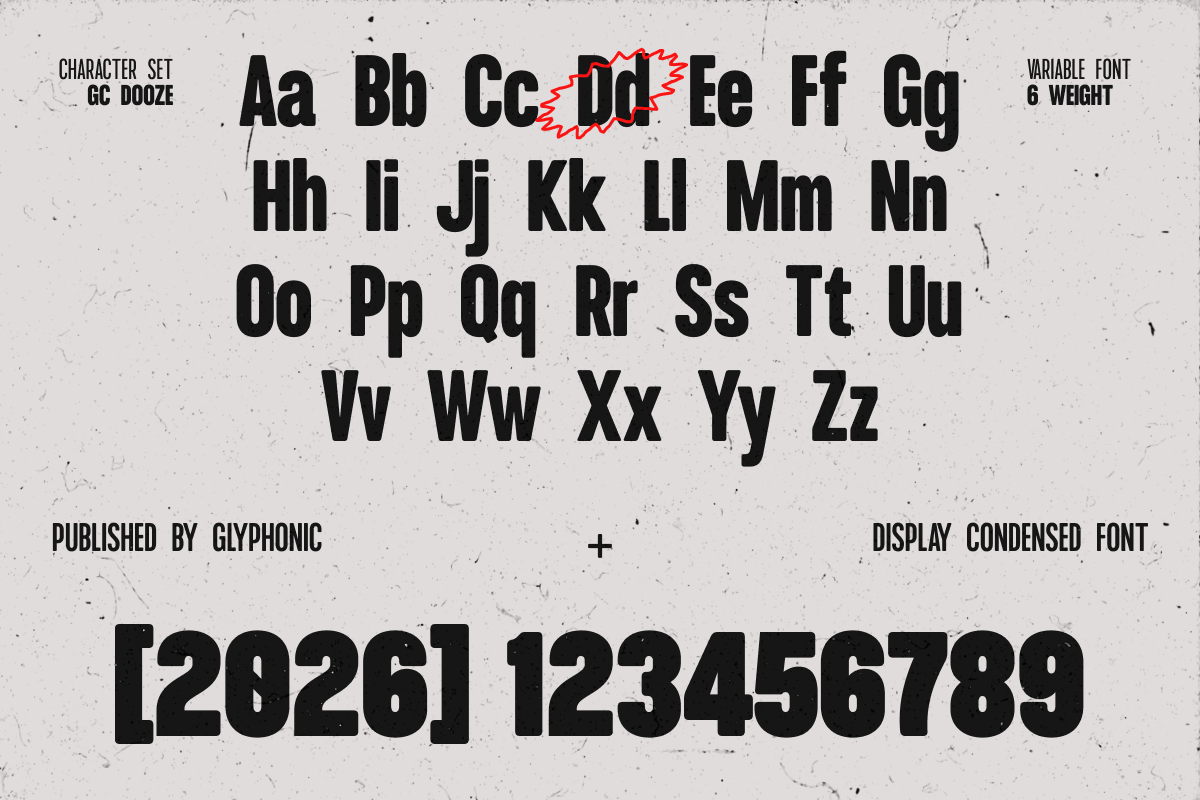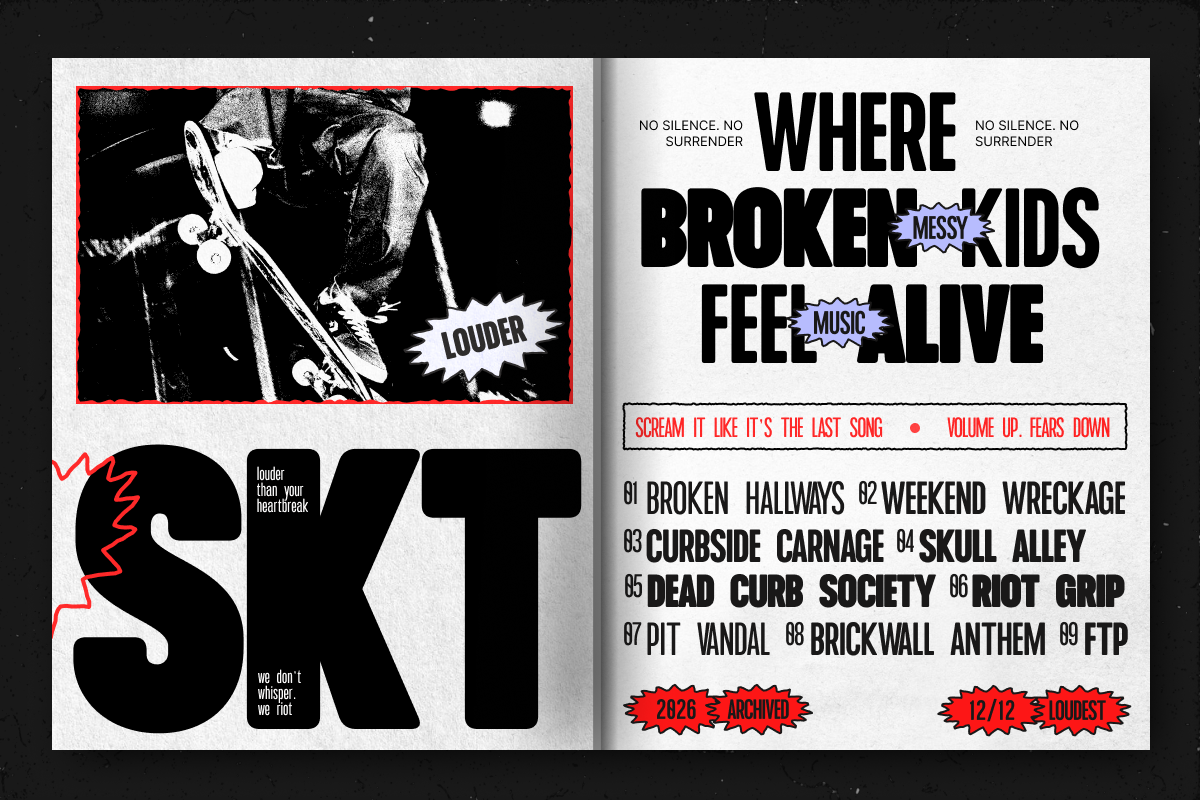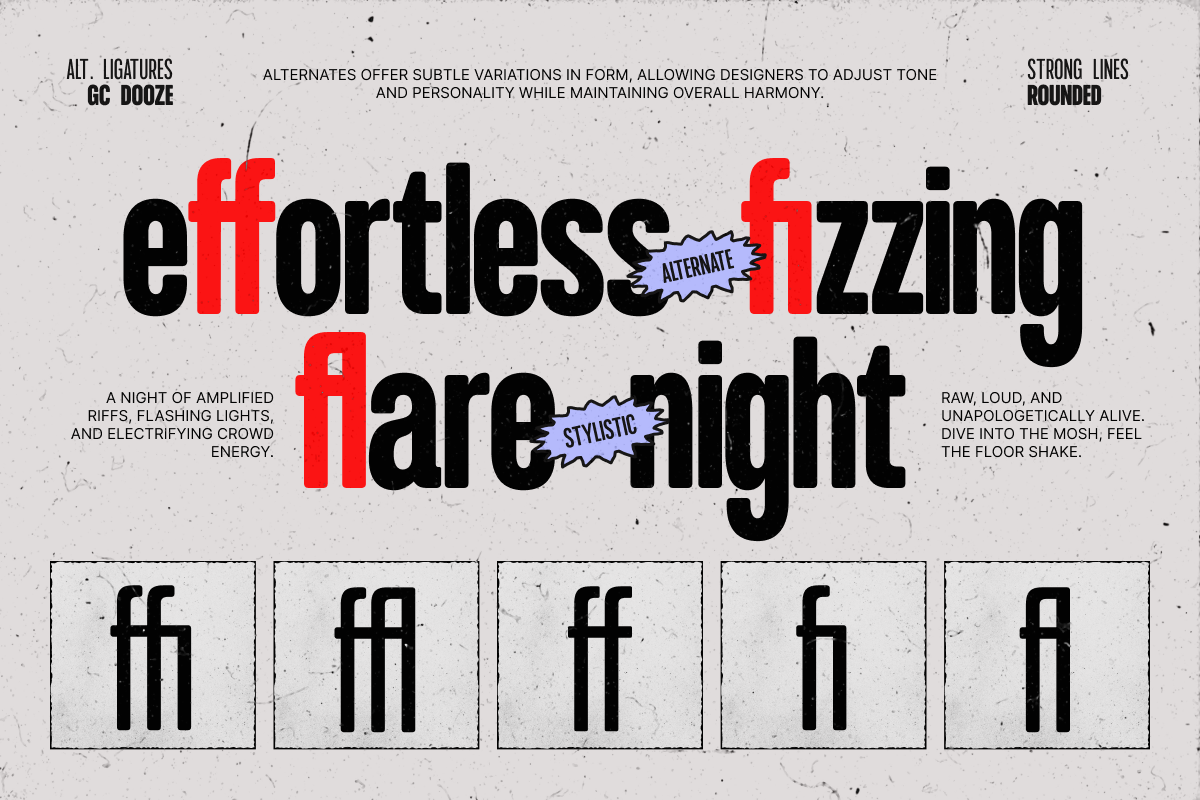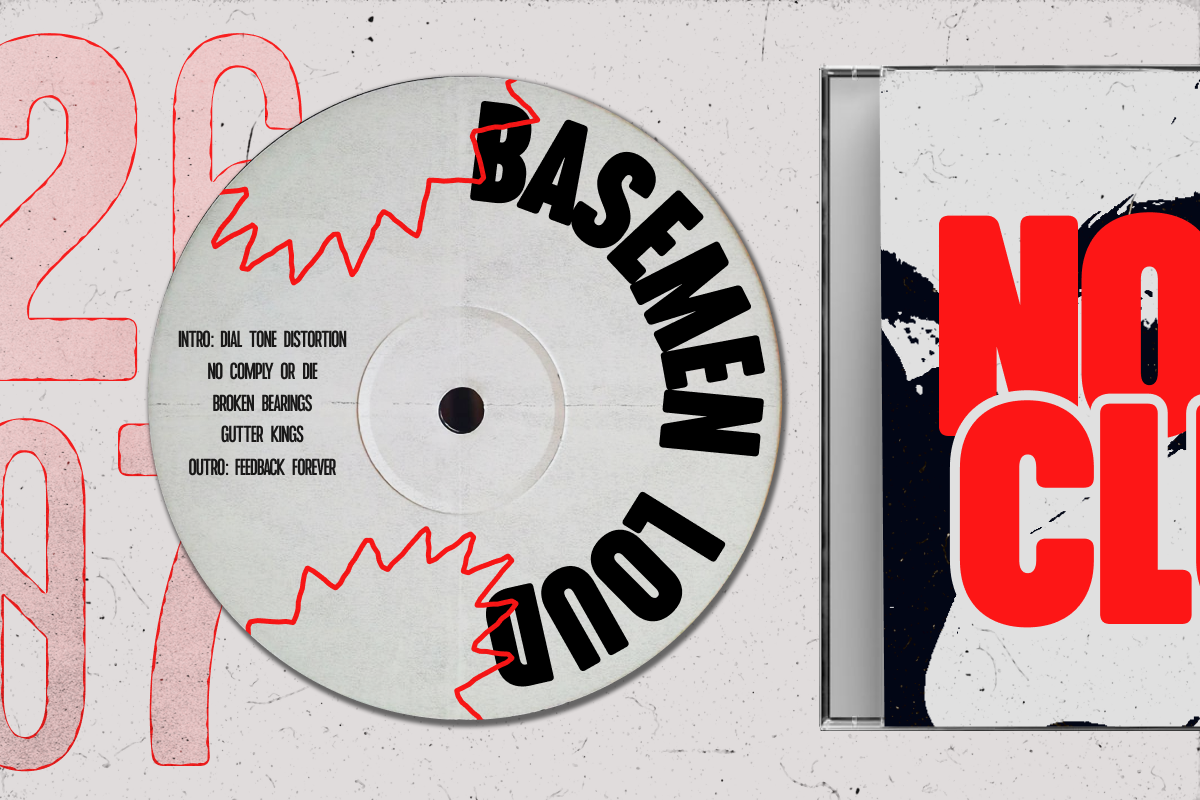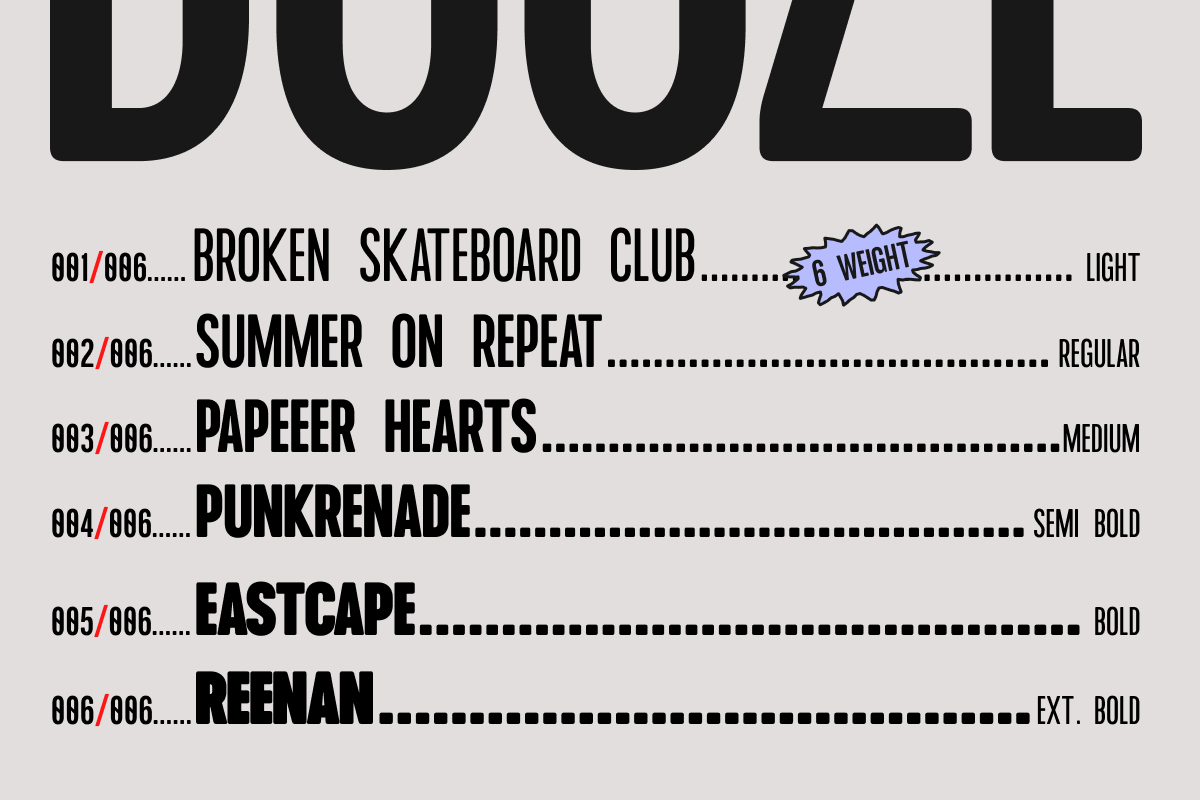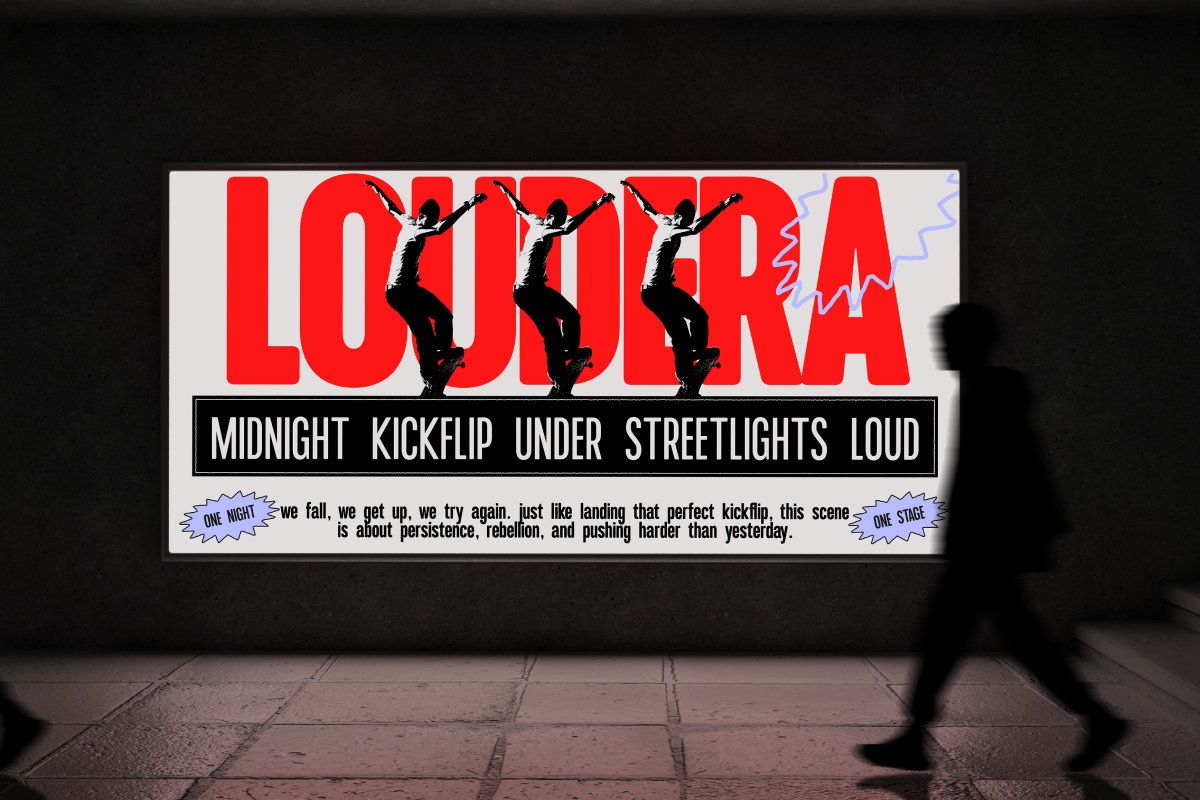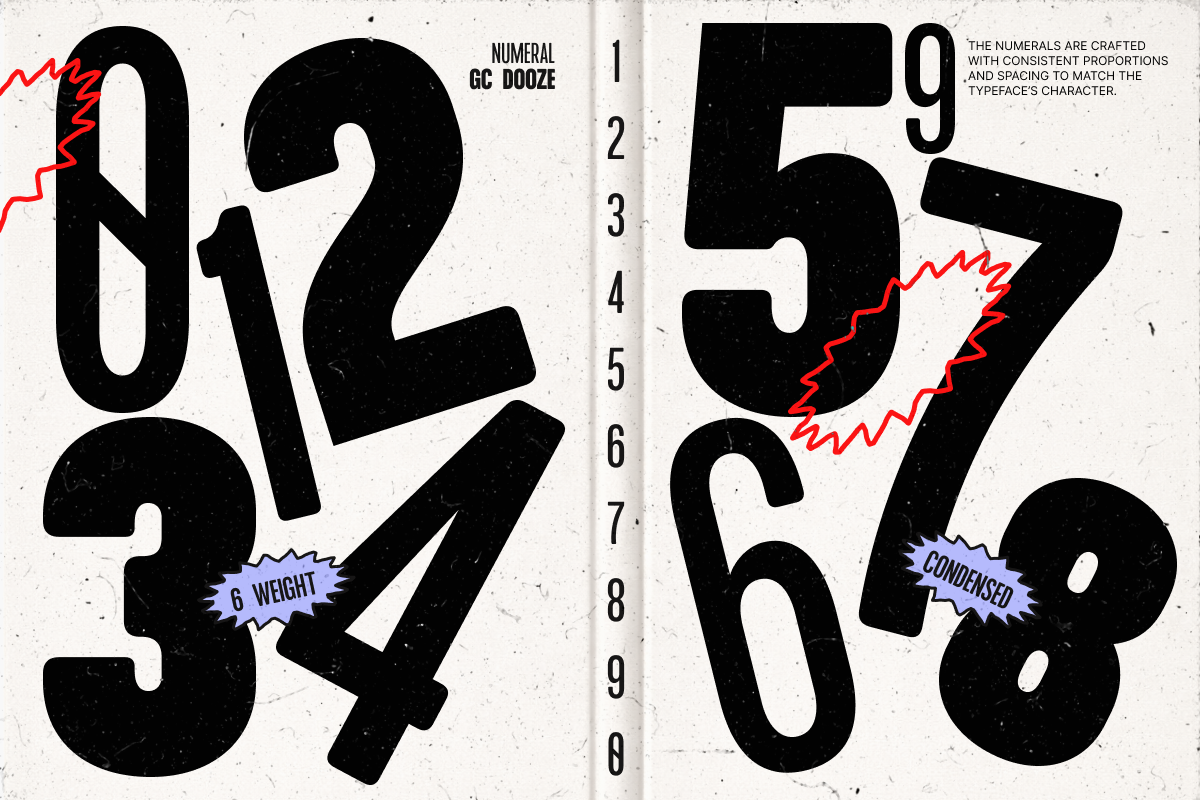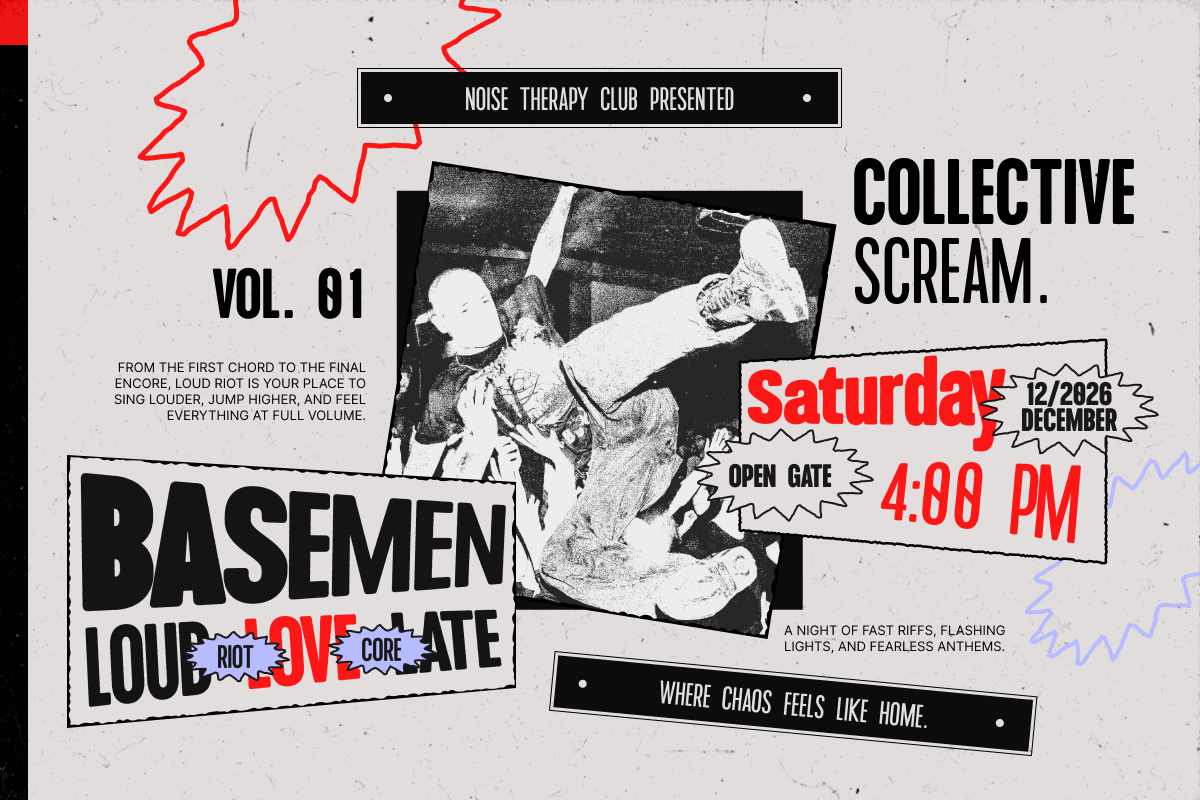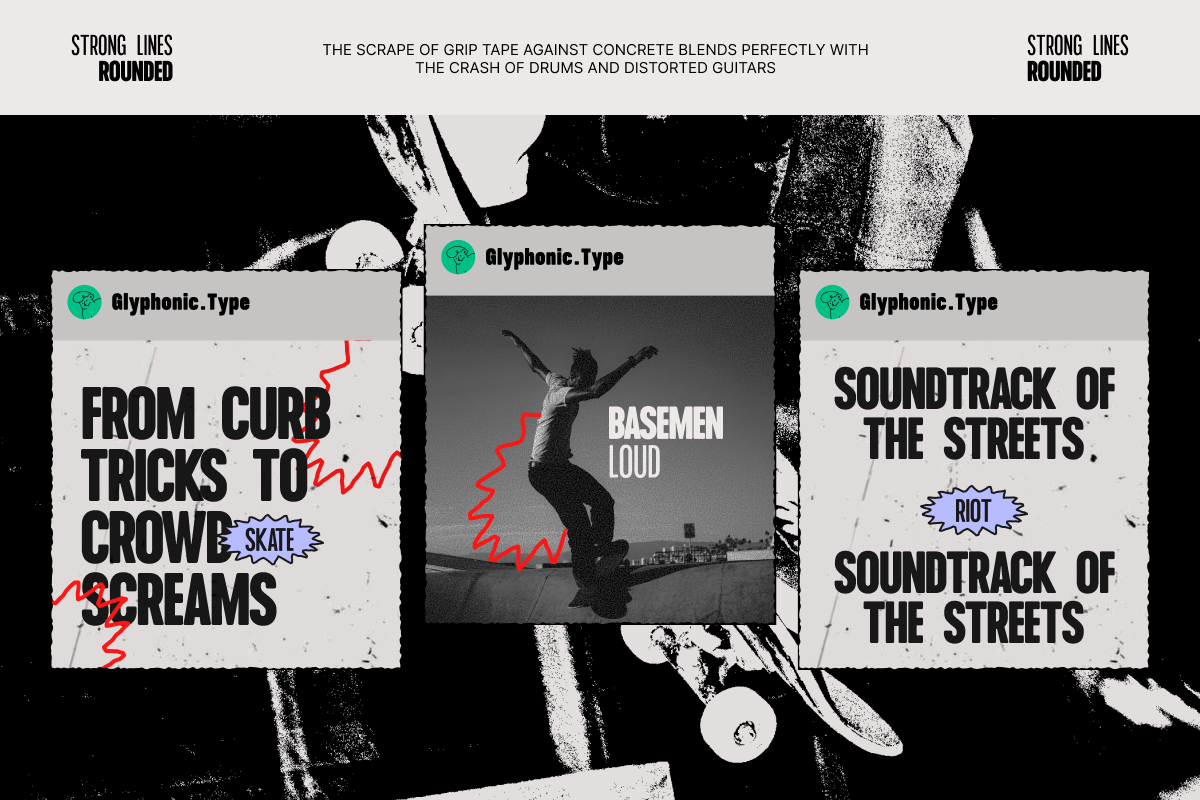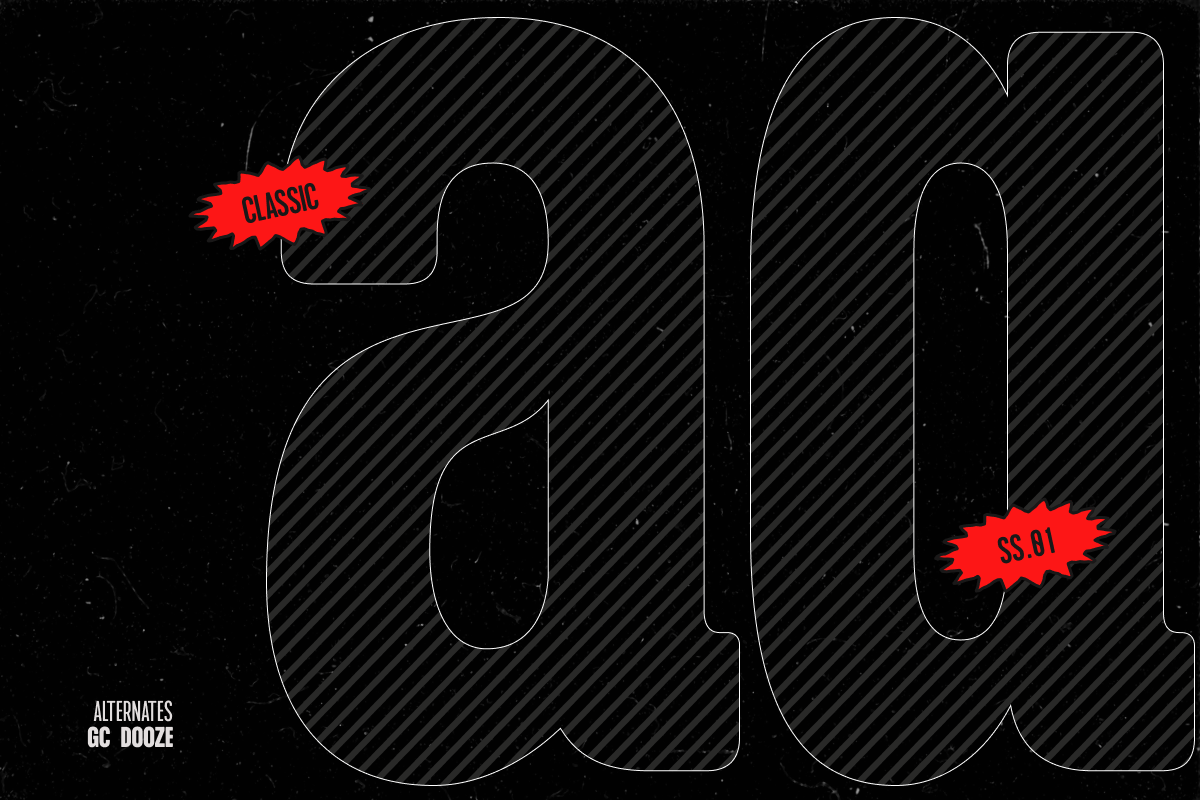
GC Dooze - Display Condensed Sans
GC Dooze – Display Condensed Sans is a bold condensed typeface that combines strong vertical structure with smooth rounded edges, creating a distinctive balance between power and playfulness. Designed to stand tall and command attention, Dooze delivers a striking visual presence while maintaining a friendly and modern tone.
Its condensed form maximizes space efficiency, making it perfect for tight layouts without sacrificing impact. The thick strokes and softened curves—clearly seen in its rounded terminals and solid construction—give the typeface a unique personality that feels both strong and approachable.
Built as a variable font with multiple weight options, GC Dooze offers flexibility for designers to explore different levels of boldness while maintaining consistency across layouts. From heavy, impactful headlines to slightly lighter expressive compositions, Dooze adapts seamlessly.
This typeface shines in display use—ideal for posters, branding, street-style visuals, editorial headlines, and modern creative campaigns. Its combination of strong lines, rounded forms, and condensed proportions makes it especially suitable for designs that aim to feel bold yet dynamic.
- Variable Font (6 Weight Options)
- Condensed Display Structure
- Strong Lines with Rounded Edges
- Multilingual Support (170+ Languages)
Bring bold energy, compact structure, and modern playful curves into your design with GC Dooze.